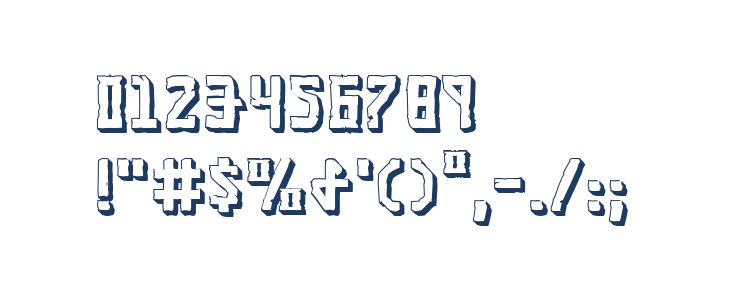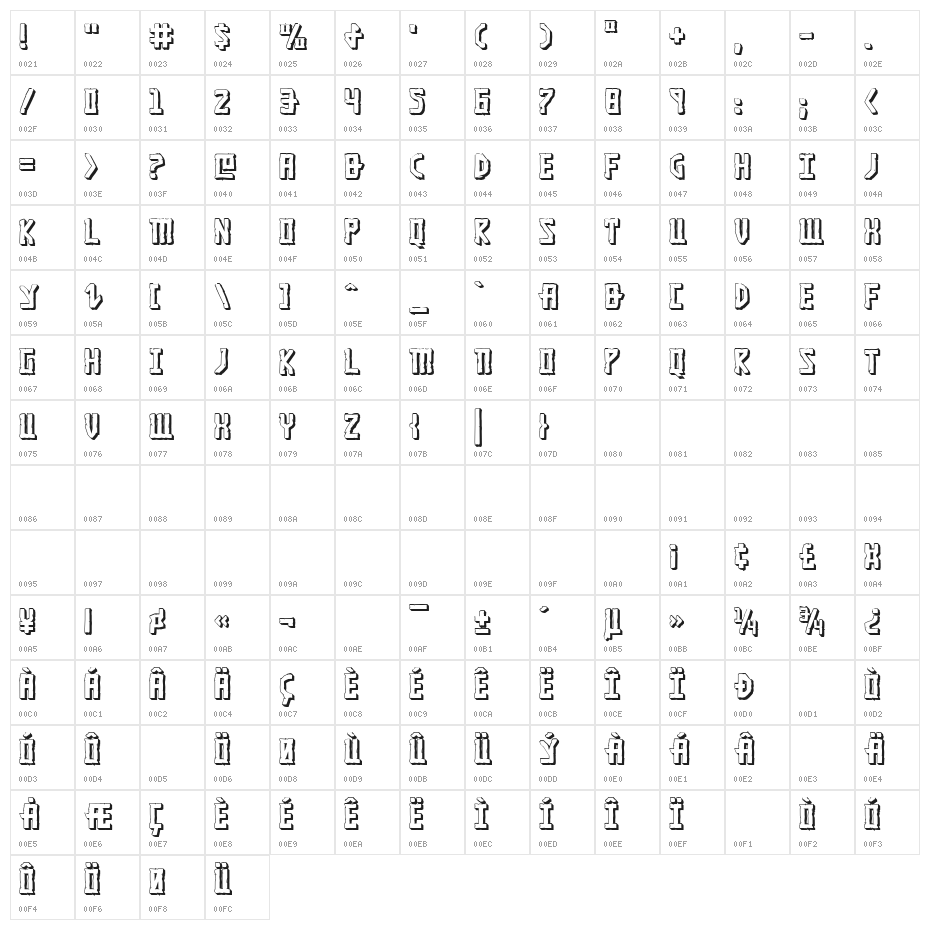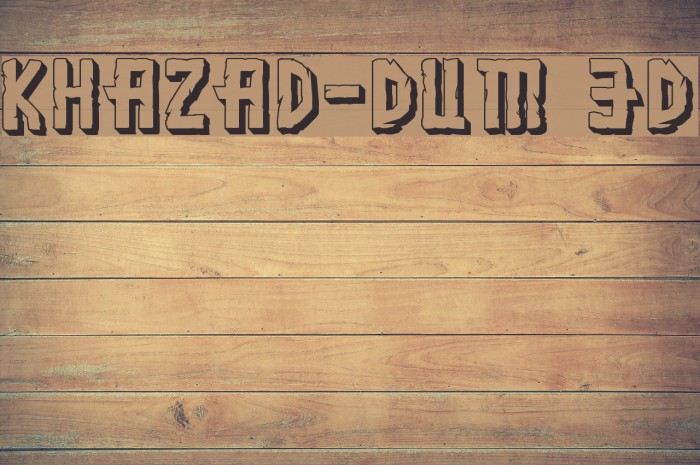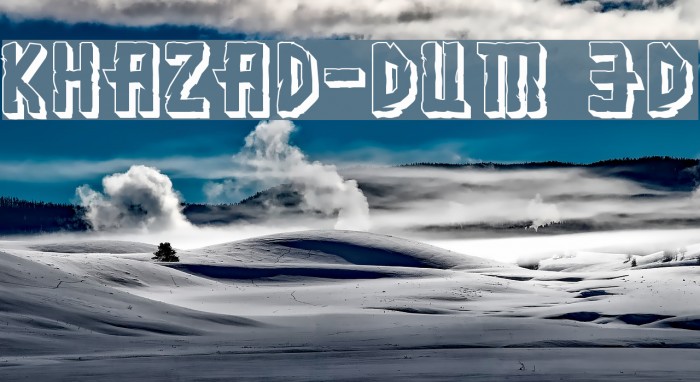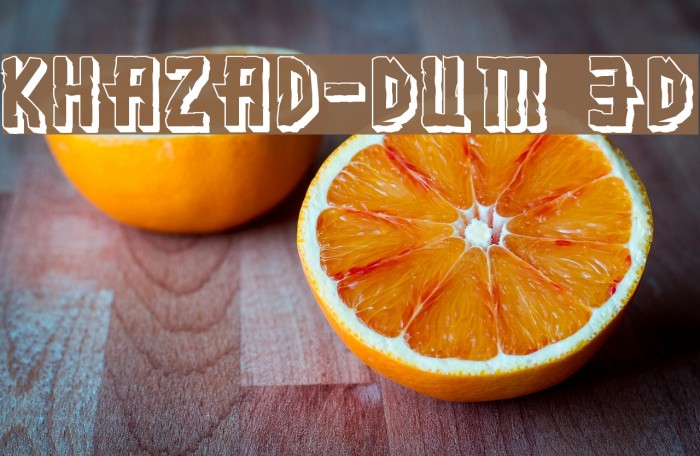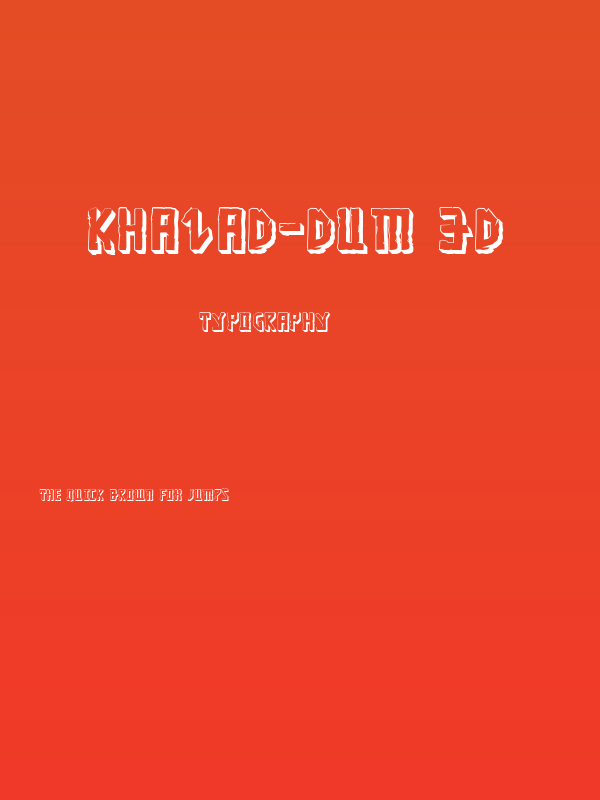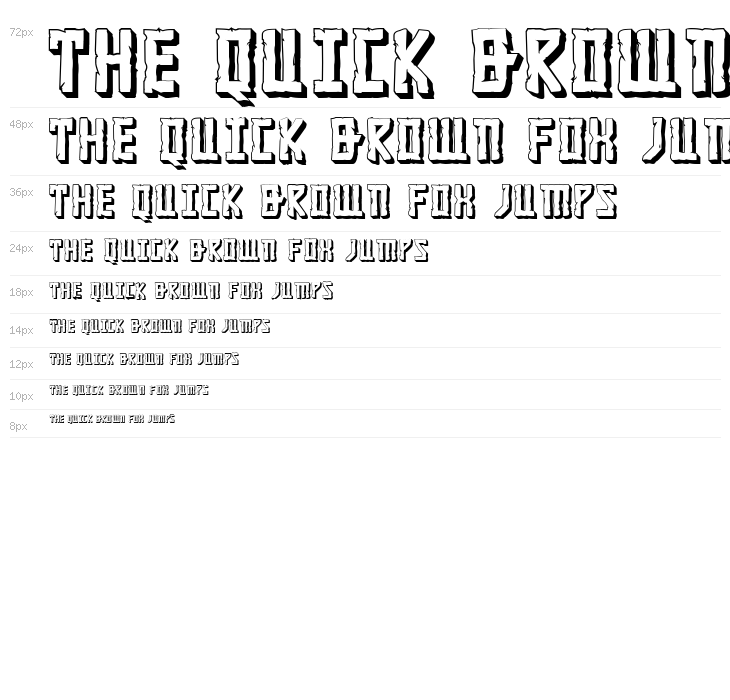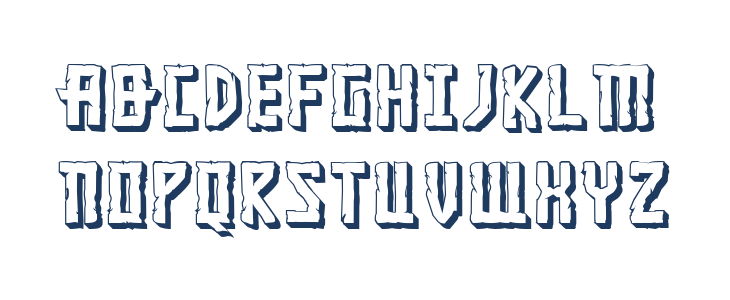
Khazad-Dum 3D Font
Khazad-Dum 3D Description
This font features a bold, three-dimensional style with a rugged, stone-like texture. The characters are blocky and angular, giving a sense of strength and solidity. The 3D effect is achieved through shadowing, which adds depth and a dramatic appearance. Each letter is distinct, with sharp edges and a slightly uneven surface that mimics the look of carved stone. This font is particularly striking in uppercase, where the boldness and texture are most pronounced. The numbers and special characters maintain the same stylistic elements, ensuring consistency across all glyphs.